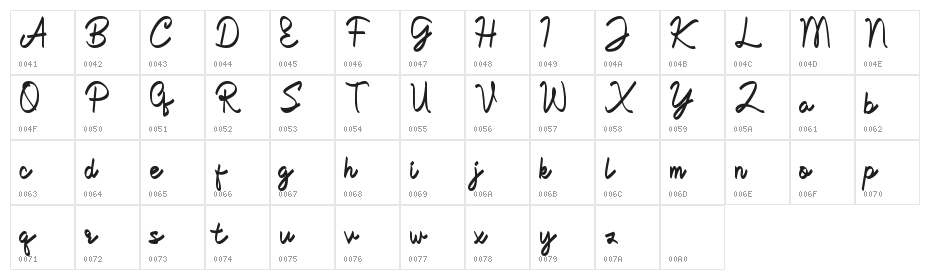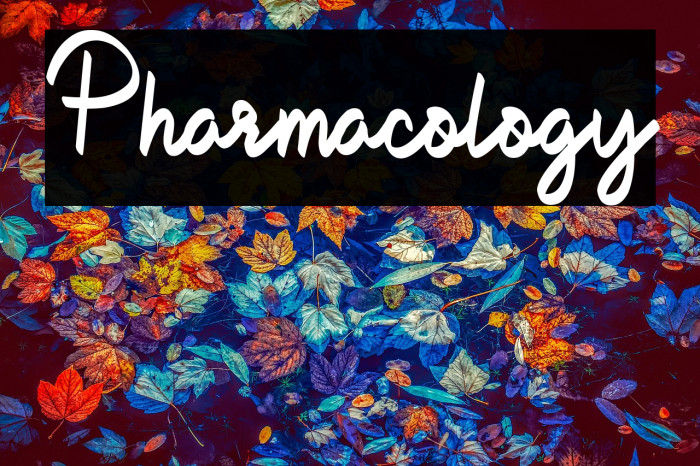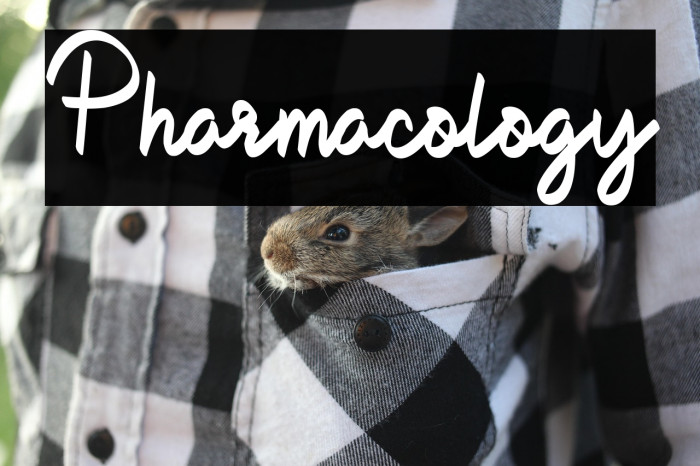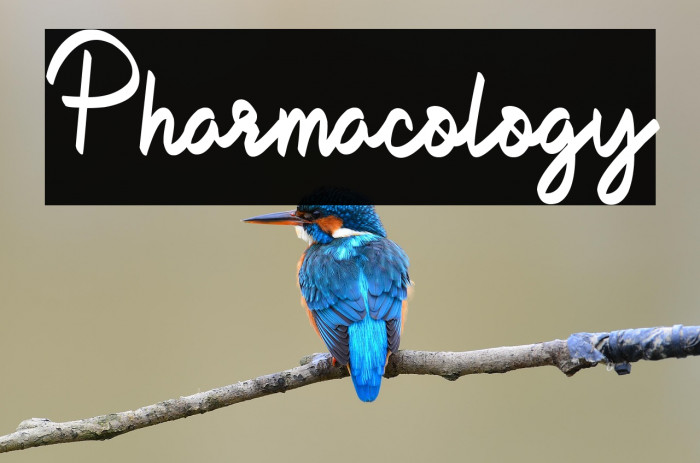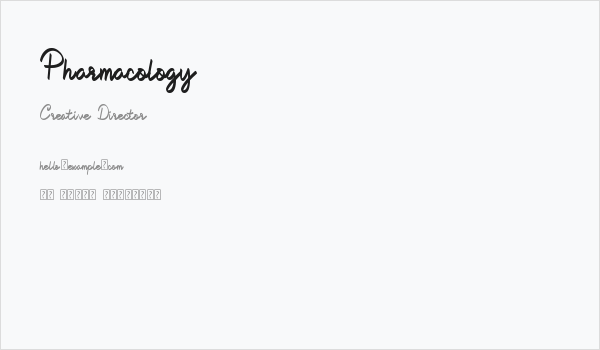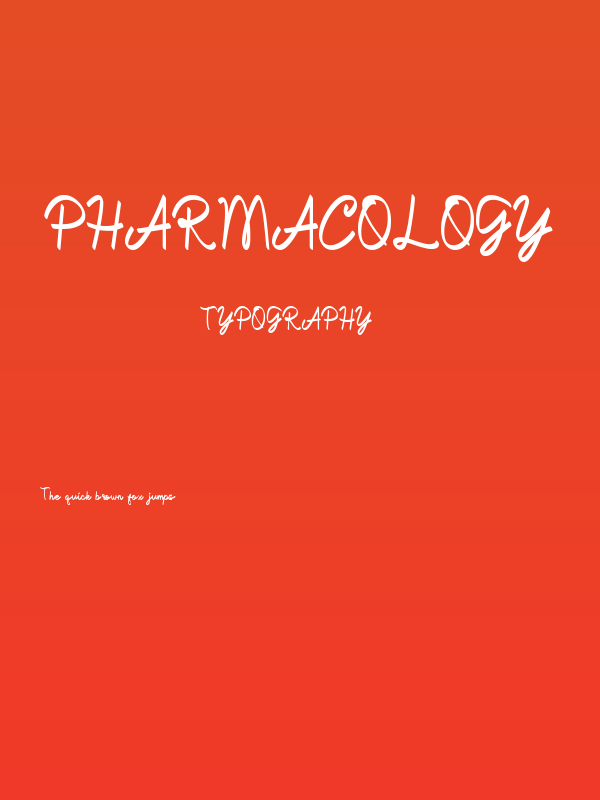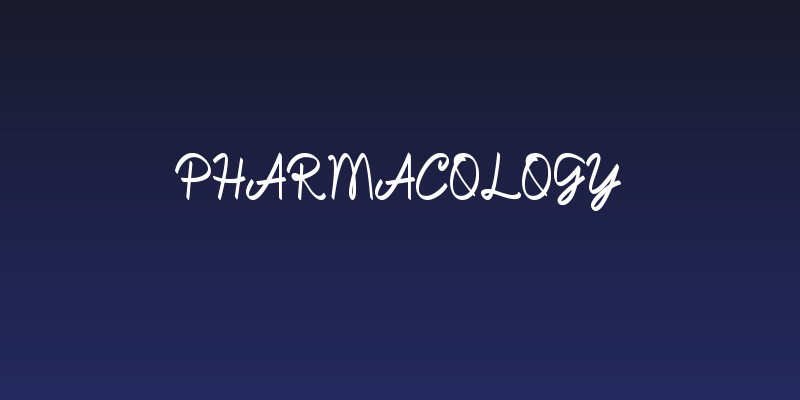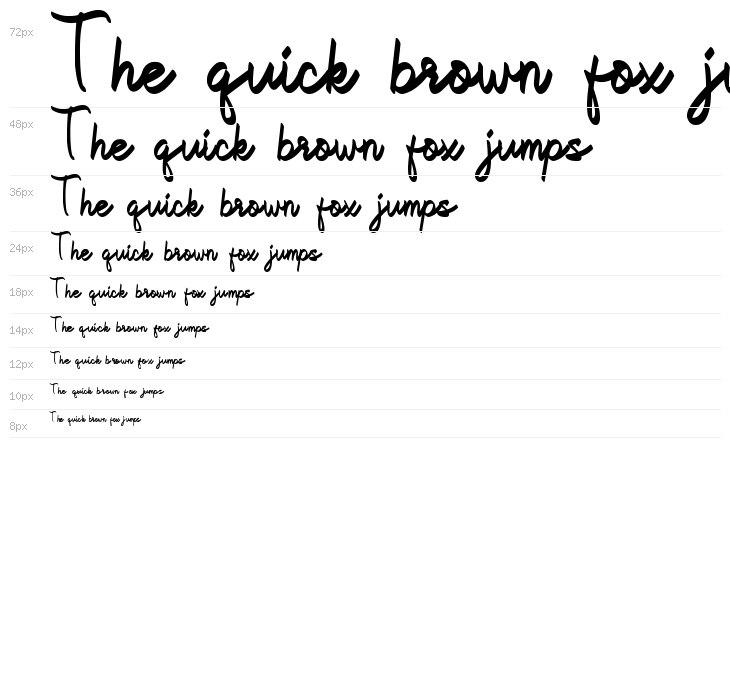
Pharmacology Font
Pharmacology Description
This font exhibits a lively and flowing script style, characterized by its cursive, handwritten appearance. The letters are connected, creating a seamless and elegant look. The uppercase letters maintain a consistent height, while the lowercase letters have a slight slant, enhancing the fluidity of the text. The strokes are moderately thick, providing a medium contrast that adds to the readability without compromising the decorative nature of the font. The overall design is both sophisticated and approachable, making it suitable for a variety of creative applications.